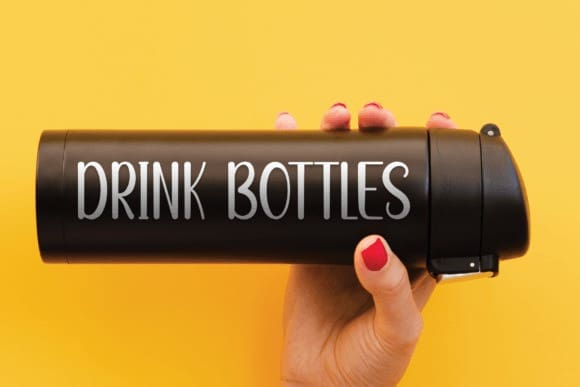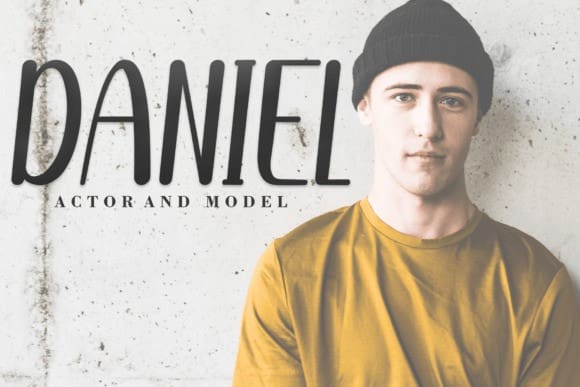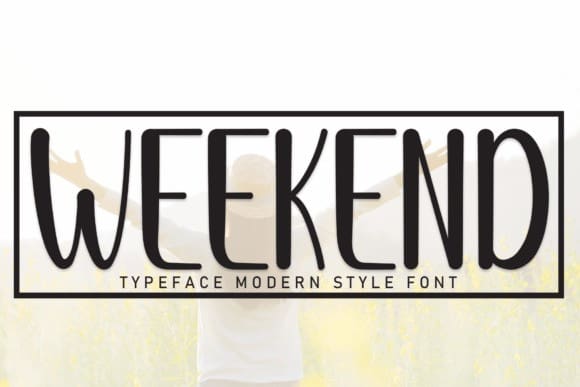
Weekend Cute Font
Weekend Cute Font is a sweet and friendly handwritten font. Fresh and neat, this font is ideal for writing wedding invitations, cards, or any other design that might need a fun touch!